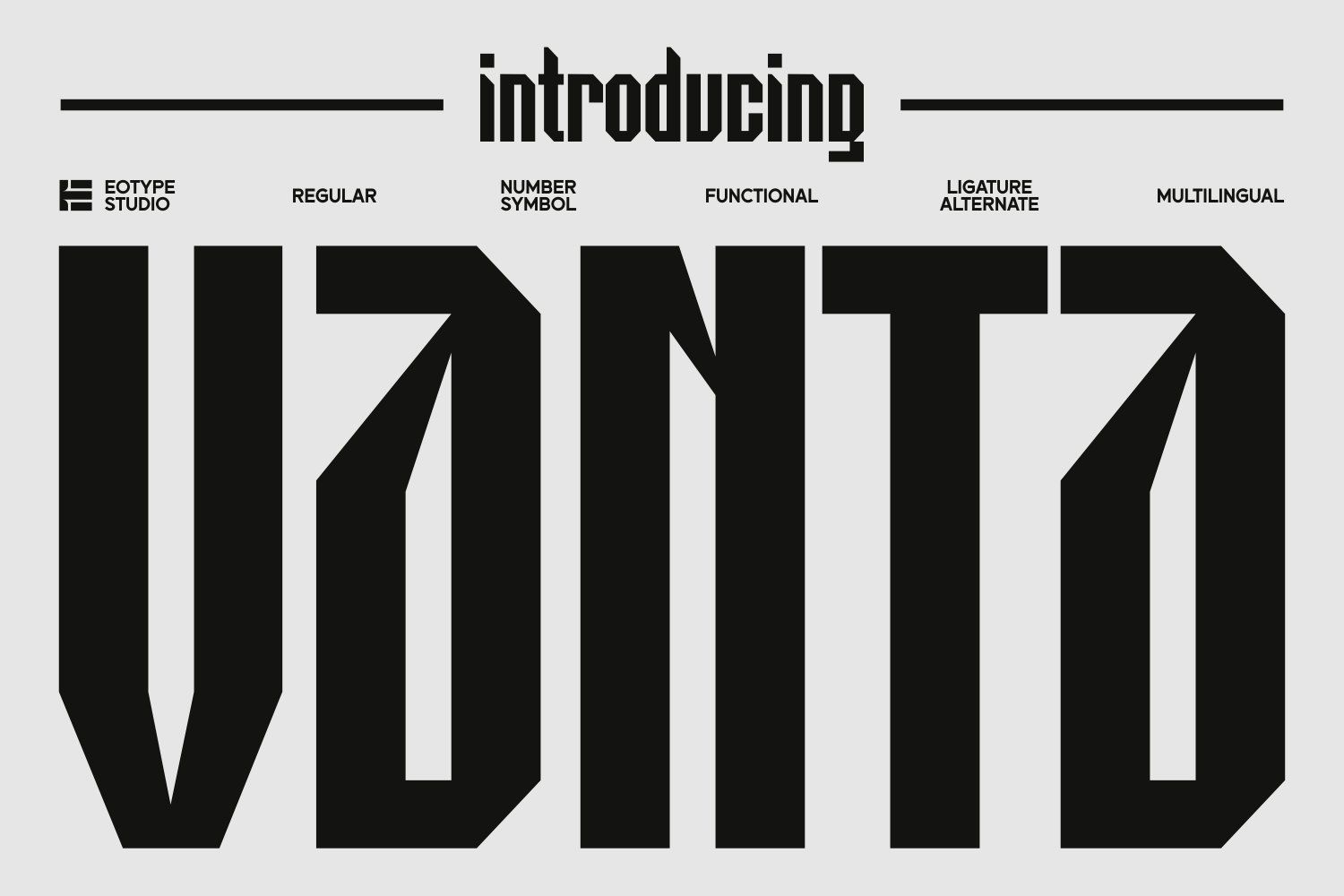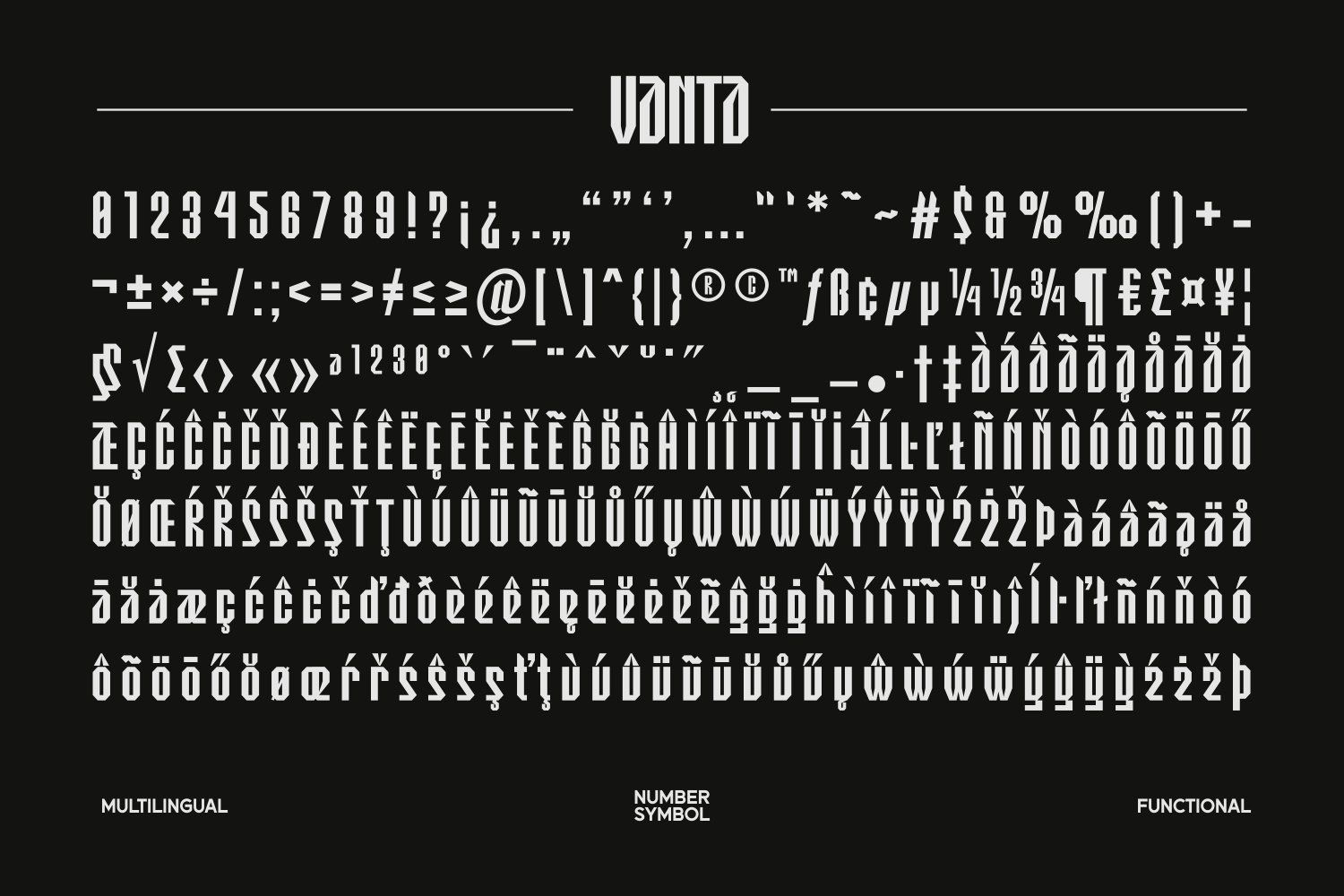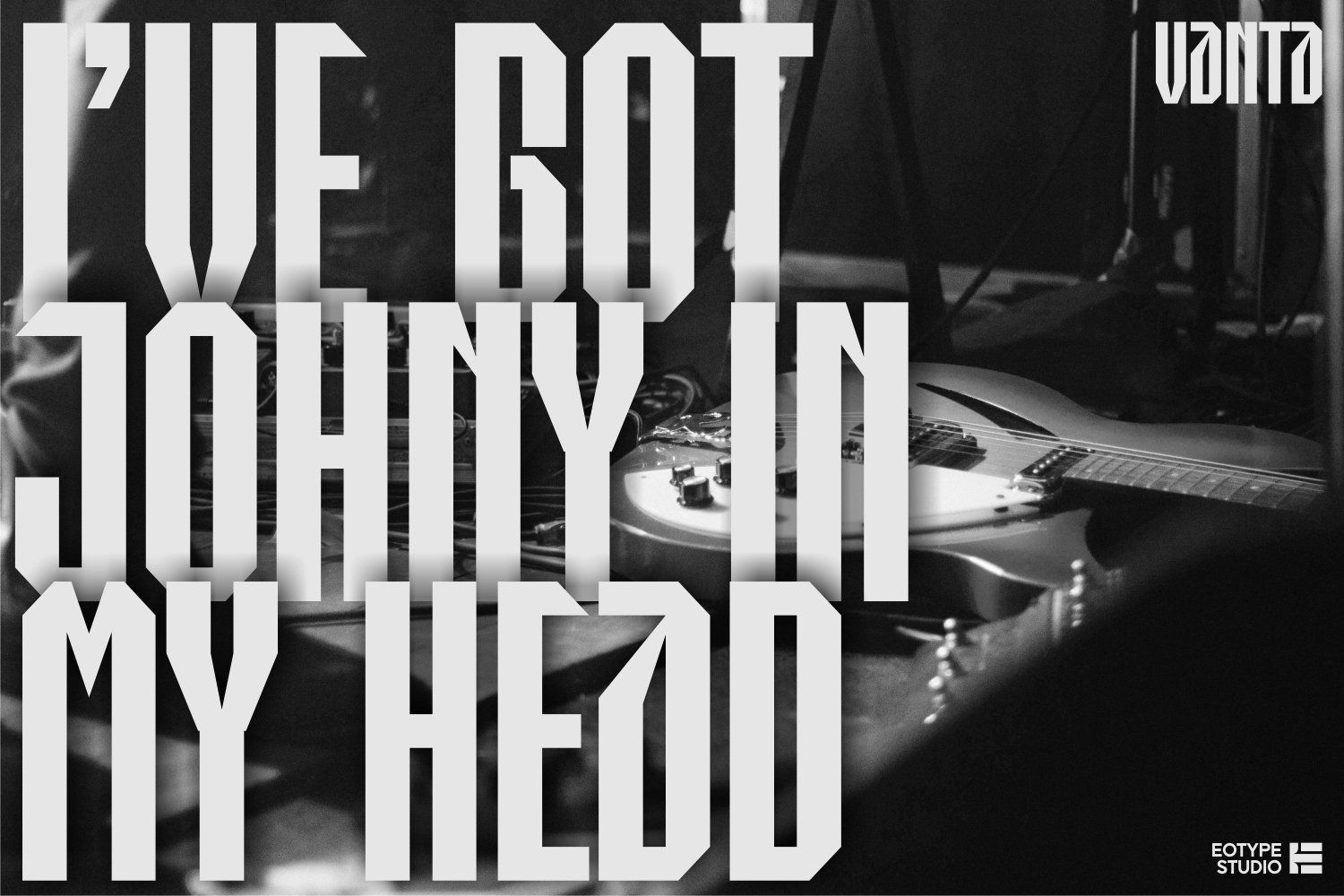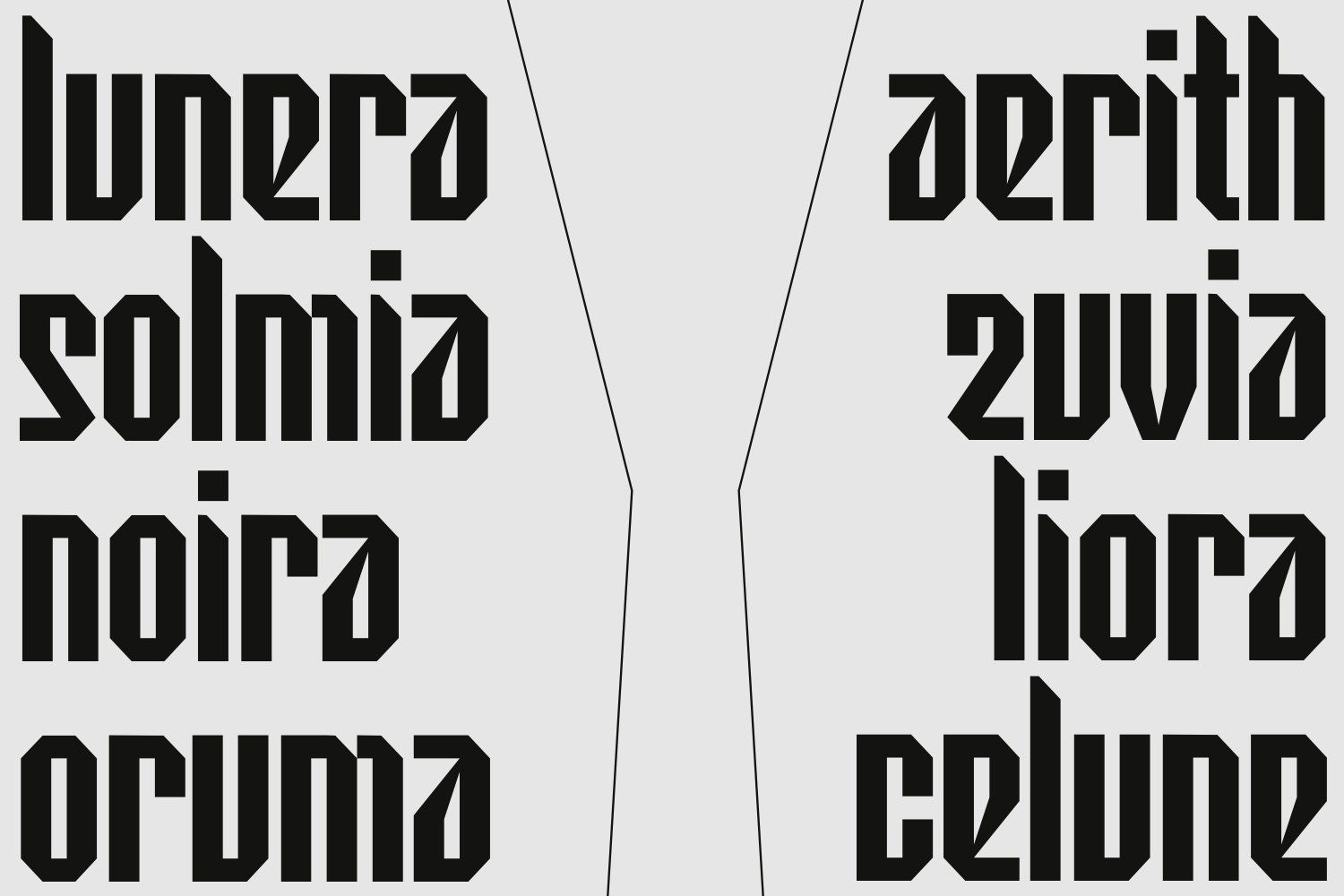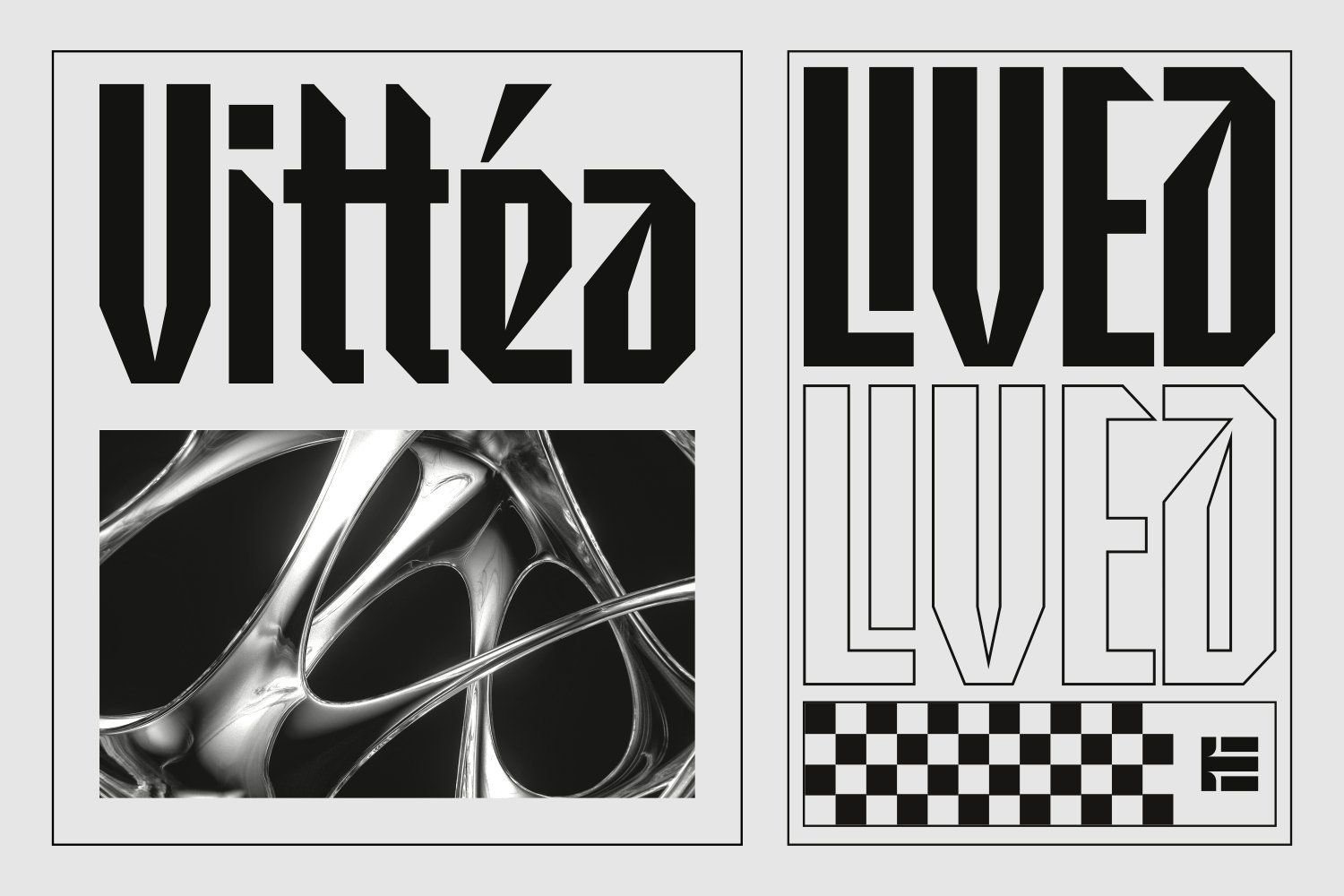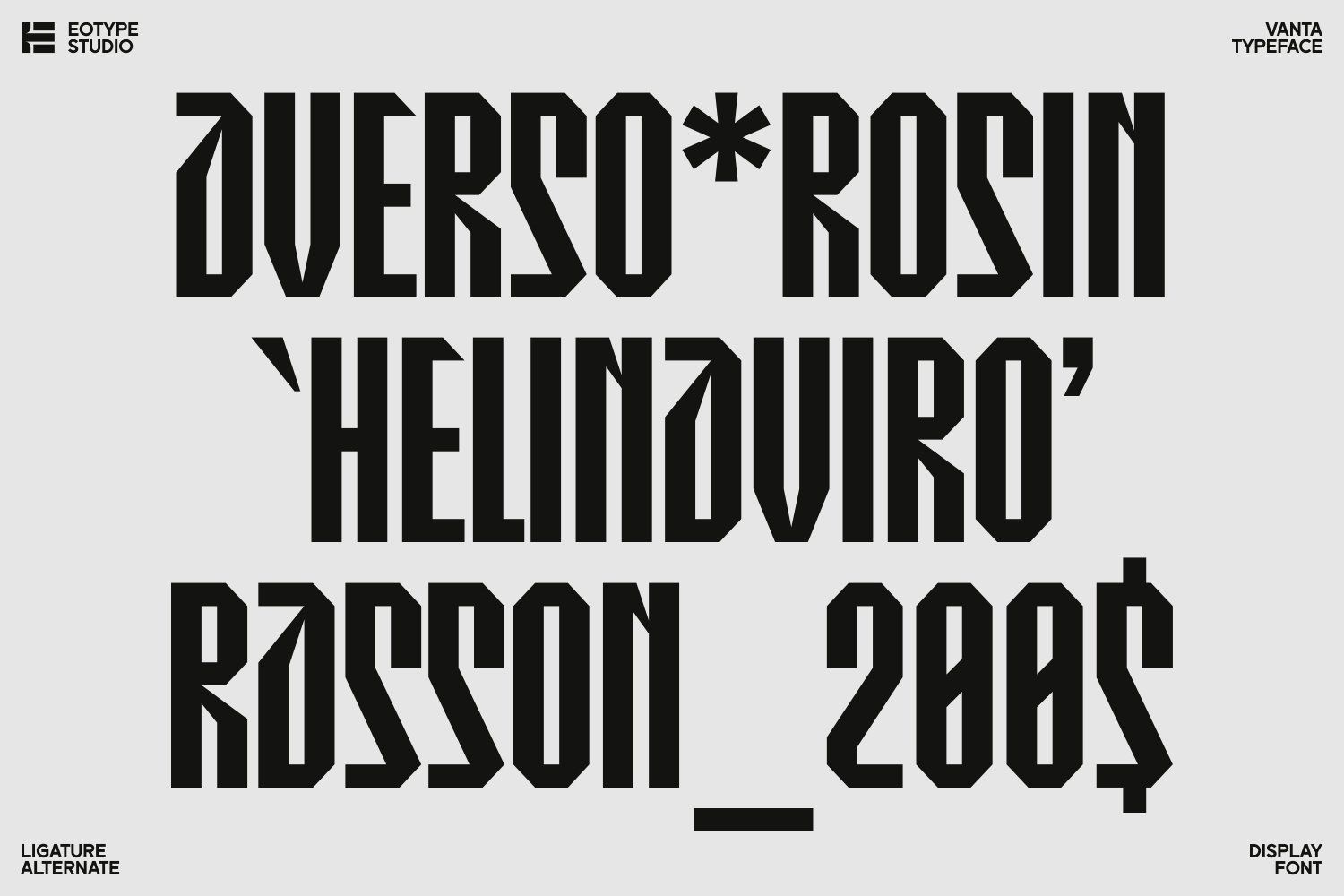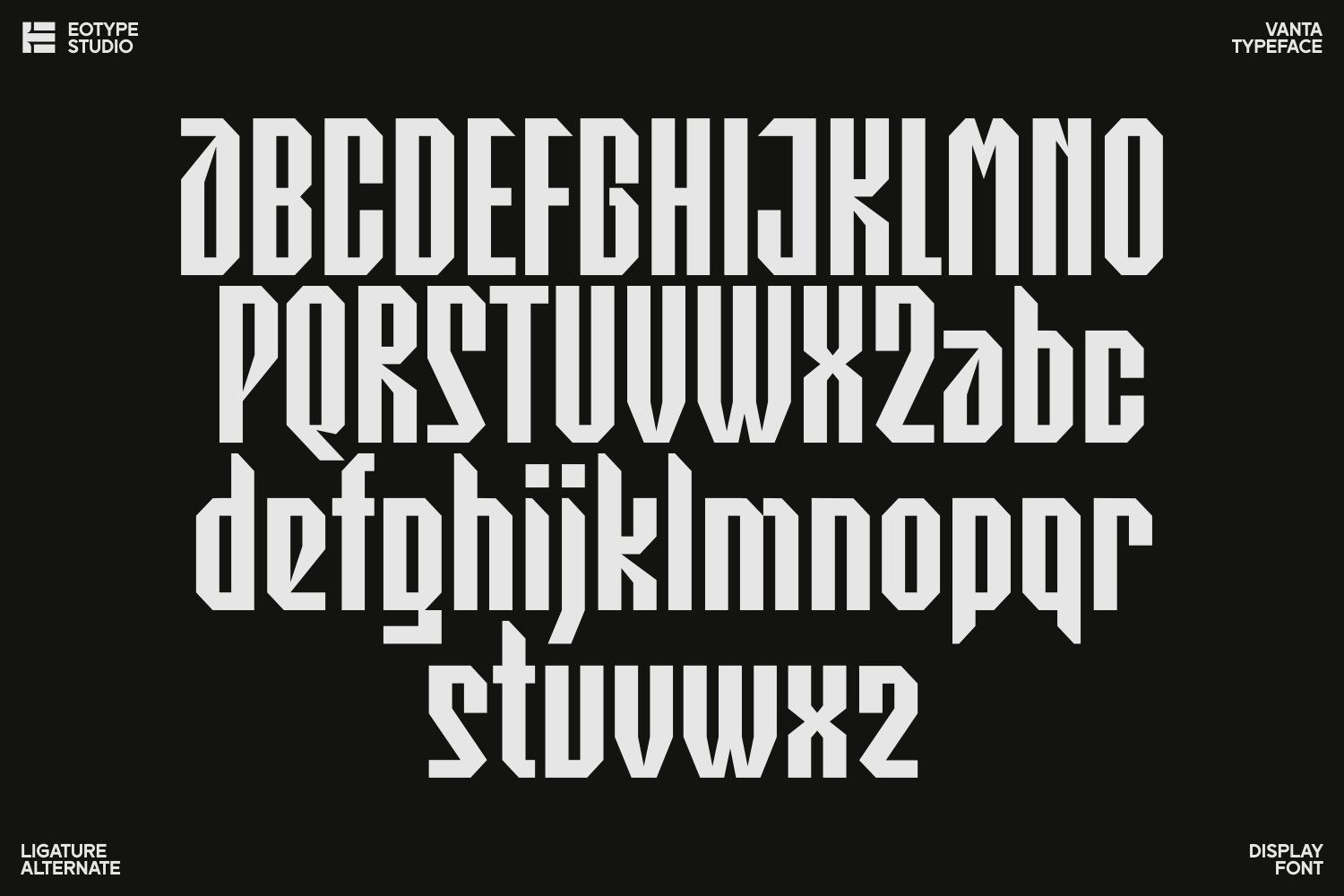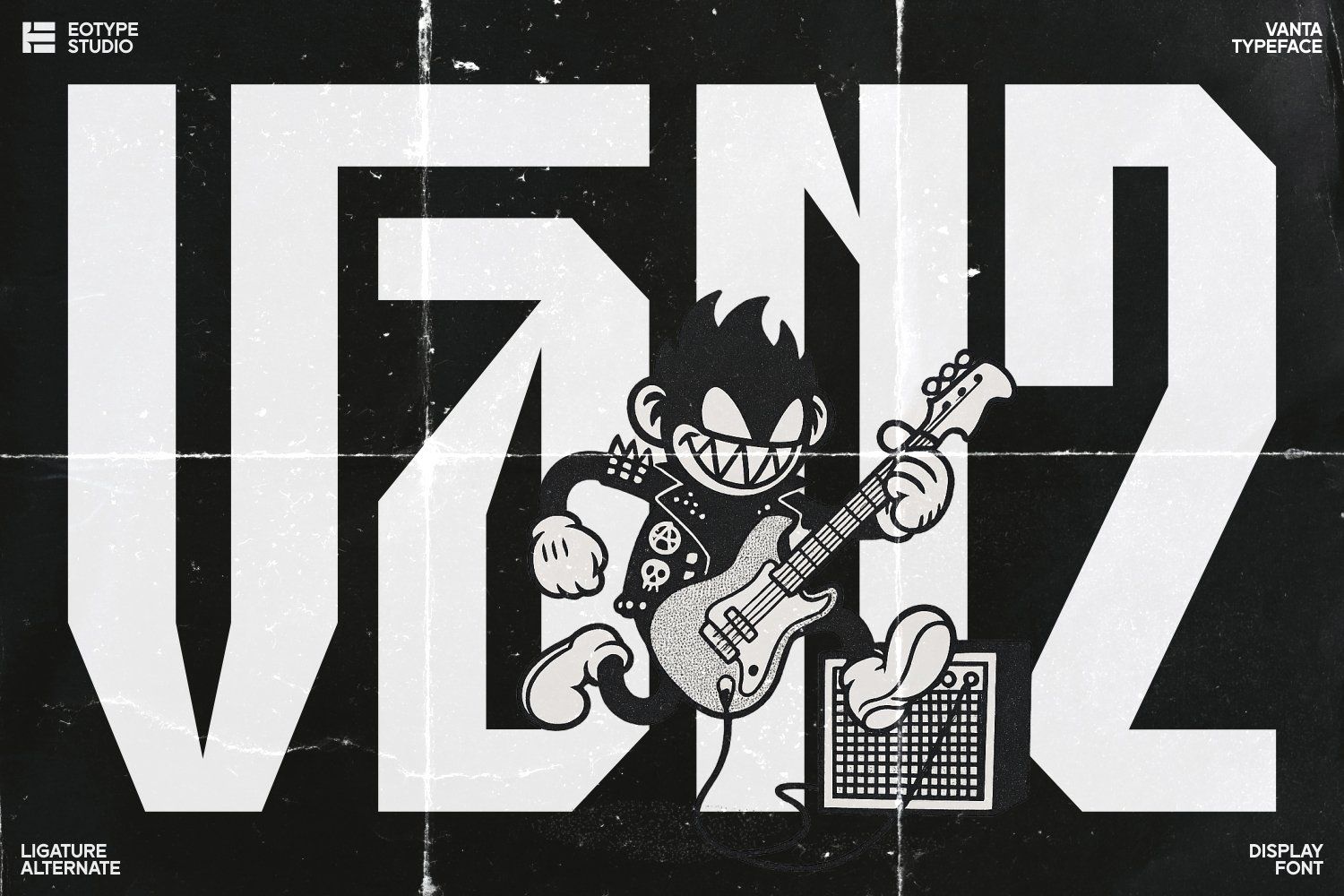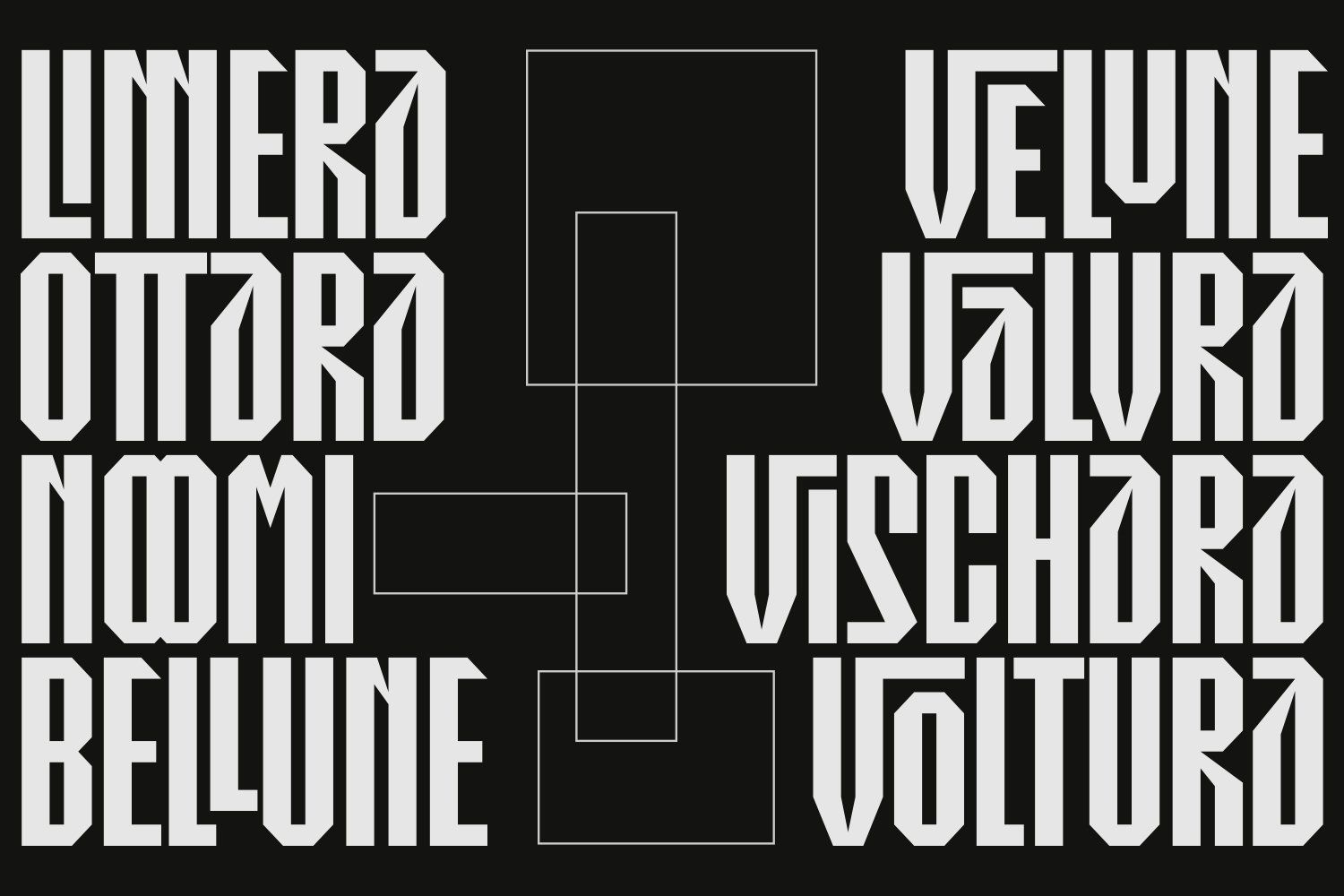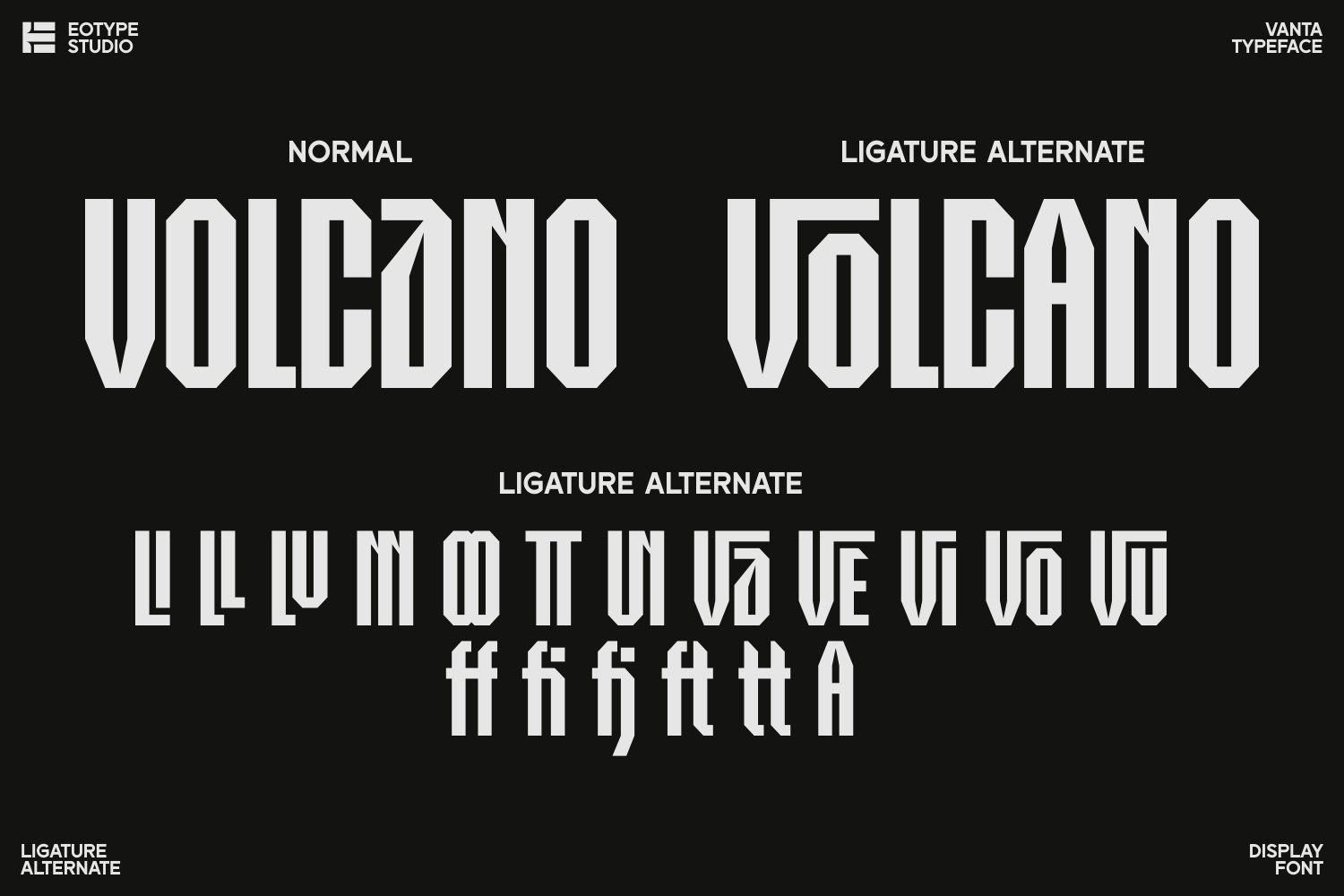
Vanta Typeface
Vanta is a powerful and modern san serif display typeface crafted to make a strong visual impact. Designed with sharp angles, tall proportions, and a distinctive geometric structure, this font brings a bold and futuristic personality while maintaining a refined san serif character.
Perfect for headlines, branding, posters, streetwear designs, logos, album covers, and editorial layouts, Vanta stands out with its aggressive yet elegant presence.
This typeface is not just visually striking it’s also highly functional. It comes fully equipped with a wide range of features to support both creative expression and professional use.